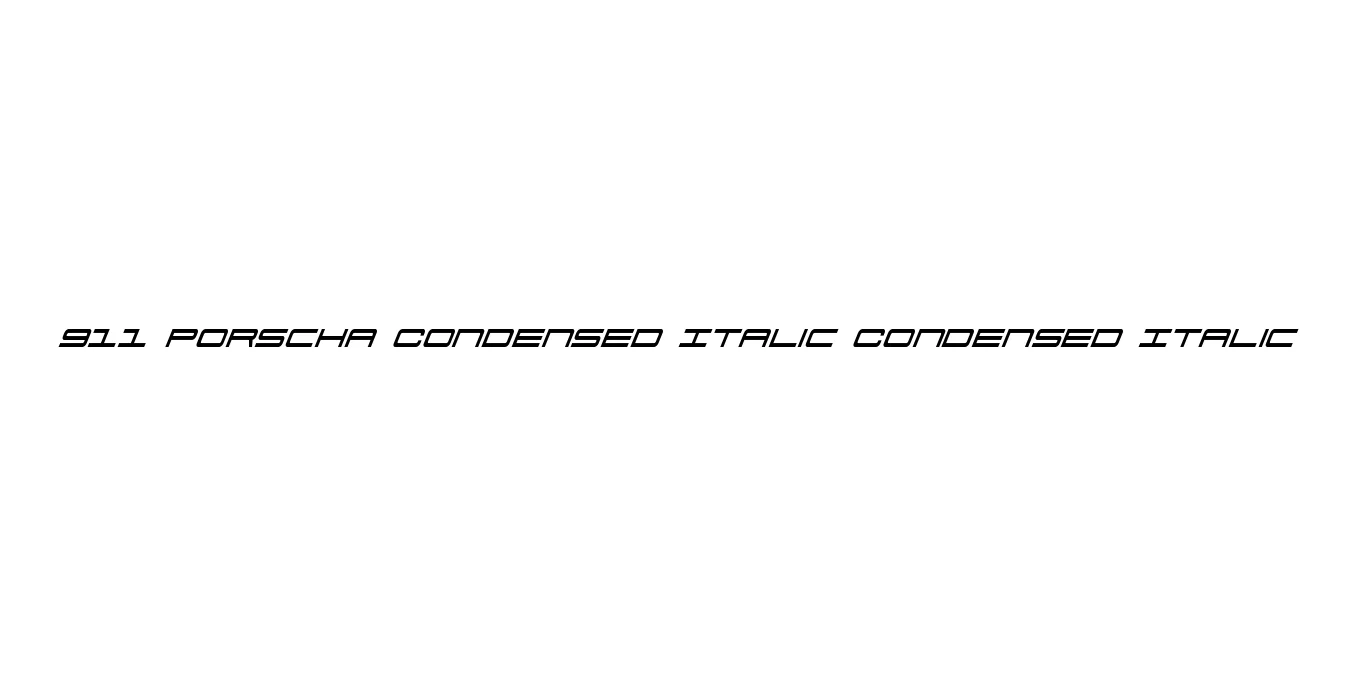
911 Porscha Condensed Italic Condensed Italic
Designed by Iconian Fonts (Dan Zadorozny)
| Category | Techno / Display |
The 911 Porscha Condensed Italic is a high-octane display typeface heavily inspired by the classic branding and logo lettering of the legendary German sports car manufacturer, Porsche. Designed by the prolific font creator Dan Zadorozny of Iconian Fonts, this typeface captures the essence of speed, precision, and luxury. Its sleek, slanted geometry and condensed structure make it a staple for projects that require a modern, aerodynamic aesthetic reminiscent of high-performance automotive engineering.
Functionally, the font excels in techno-themed and racing-inspired graphics. The Condensed Italic variation specifically provides a sense of forward motion and urgency, making it ideal for large-scale headlines, event posters, and digital gaming interfaces. While it retains a strong 1980s and 90s aesthetic, its clean lines ensure it remains relevant for contemporary sports branding and corporate identities seeking a bold, technical appearance.
911 Porscha Condensed Italic Best Uses
Ideal for automotive and tech-related corporate identities.
Perfect for high-impact titles in magazines and promotional banners.
Great for racing game UI elements and leaderboard displays.
Captures attention in sports and cinematic event materials.
Works well for jersey numbering and athletic streetwear graphics.